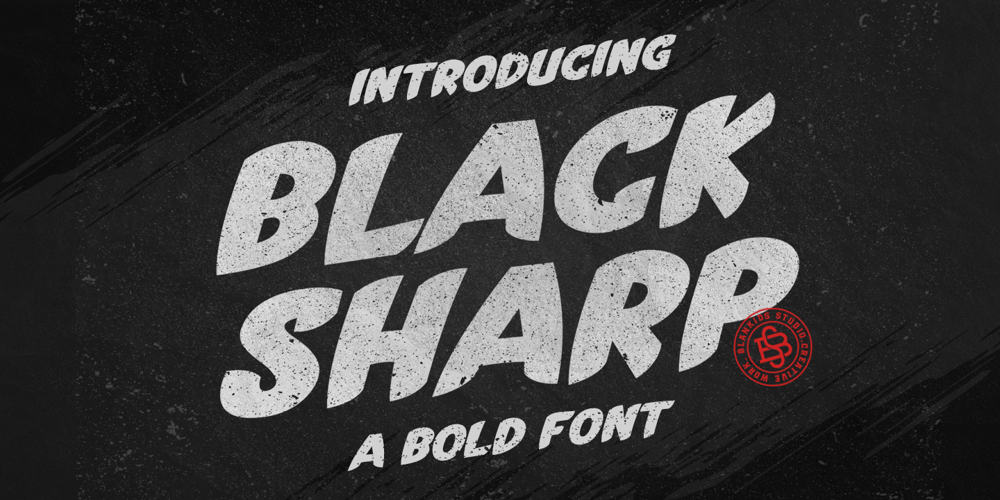
Black Sharp Font Family was designed by Bangkit Tri Setiadi and published by Blankids. Black Sharp contains 1 styles and family package options. Are you looking for a bold and strong font? Do you want of creating Something that stand out and inspire creativity, imagination, and endless fun? Wait no more, we will give you the best choice.Black Sharp a Bold Font, Inspiring from strong bold style typography. This font is perfect for a design that makes it more attractive and playful. made with a very good level of aesthetics making this font suitable for book cover, poster, packging, merchandise, logotype and much more.Black Sharp font includes Multilingual Support, among others :Afrikaans, Albanian, Asu, Basque, Bemba, Bena, Breton, Catalan, Chiga, Cornish, Danish, Dutch, English, Estonian, Faroese, Filipino, Finnish, French, Friulian, Galician, German, Gusii, Indonesian, Irish, Italian, Kabuverdianu, Kalenjin, Kinyarwanda, Luo, Luxembourgish, Luyia, Machame, Makhuwa, Meetto, Makonde, Malagasy, Manx, Morisyen, North Ndebele, Norwegian Bokmål, Norwegian Nynorsk, Nyankole, Oromo, Portuguese, Quechua, Romansh, Rombo, Rundi, Rwa, Samburu, Sango, Sangu, Scottish Gaelic, Sena, Shambala, Shona, Soga, Somali, Spanish, Swahili, Swedish, Swiss German, Taita, Teso, Uzbek (Latin), Volapük, Vunjo, ZuluFEATURES : Uppercase Lowercase Number Punctuation Multilingual PUA Encode Opentype